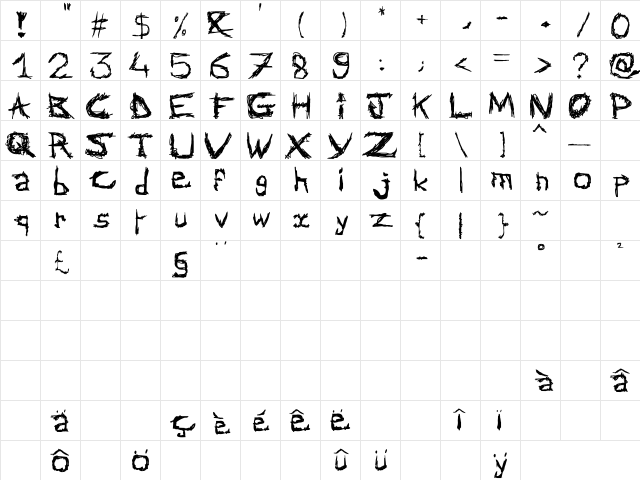
AbstractClassicFont AbstractClassicFont
| Foundry | High-Logic |
| Designer | High-Logic - Erwin Denissen |
Design Context for AbstractClassicFont Typeface
AbstractClassicFont wears its vintage influences proudly, with letterforms that recall mid-century signage, classic packaging, and nostalgia-driven design.
Font Pairing: Combine AbstractClassicFont with a simple slab or neutral sans — period-accurate companions reinforce the vintage feel without competing for attention.
Pro Tip: Lean into AbstractClassicFont's period character by pairing it with aged paper textures, muted colour palettes, and vintage illustration styles.